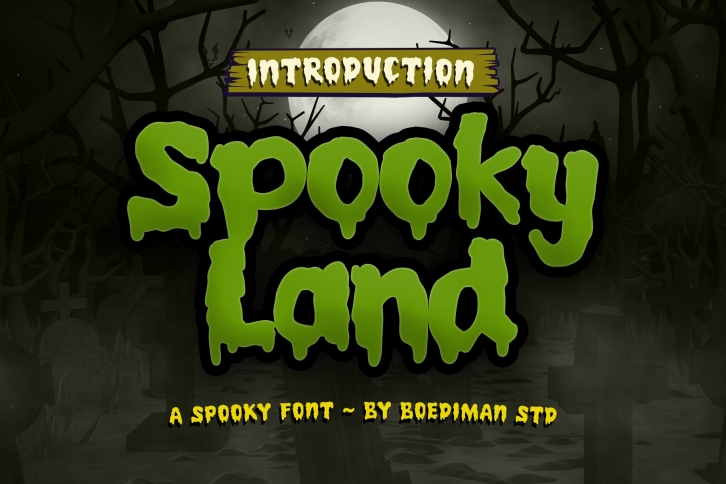
Spooky Land is a beautiful font that was designed by Boediman Studio. It's a great choice for designers and creatives who need such a font. It was released on September 2, 2022 and the file size is 16.12 MB. Spooky Land may give a more youthful, expressive and casual look to your project. It is a very beautiful, refined, elegant, and high-quality font.